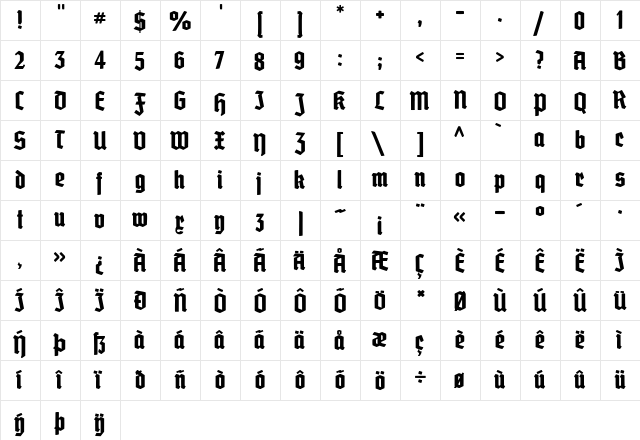
Grobe Deutschmeister Regular
| Foundry | Peter Wiegel, CAT-Fonts |
| Designer | Peter Wiegel |
Design Context for Grobe Deutschmeister Typeface
Grobe Deutschmeister is a composed and adaptable typeface that performs quietly and consistently across a wide range of design contexts.